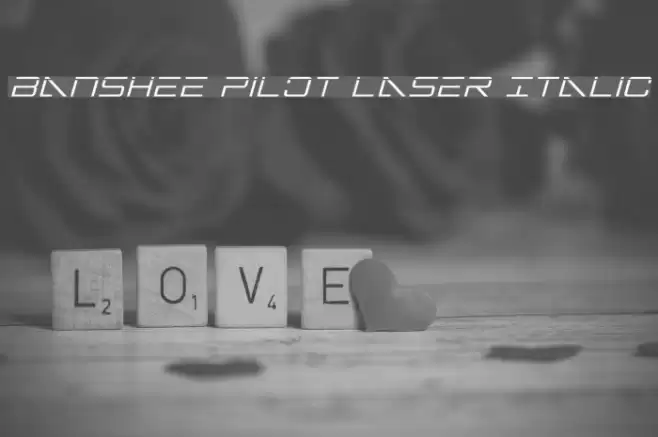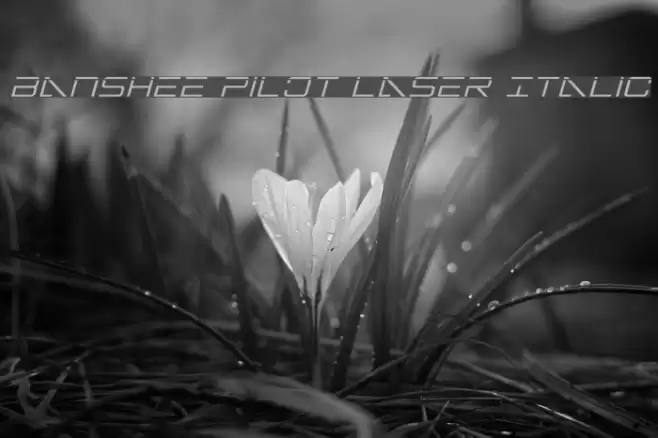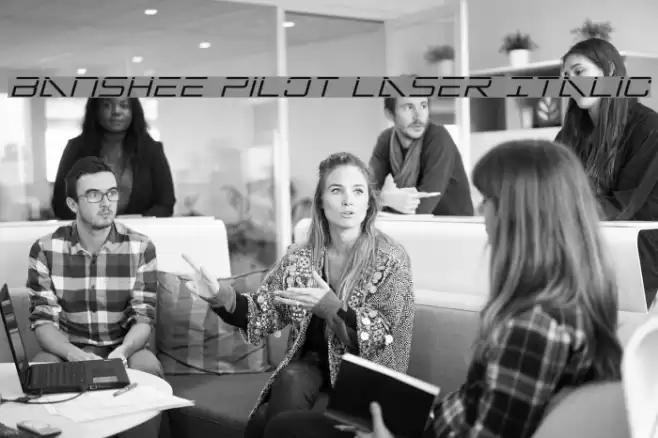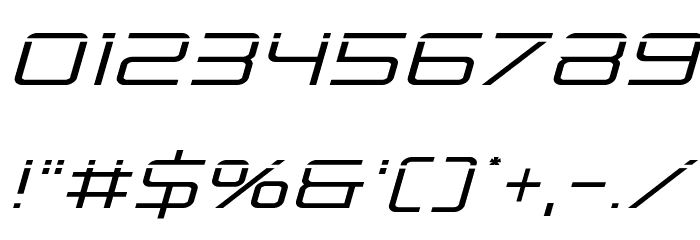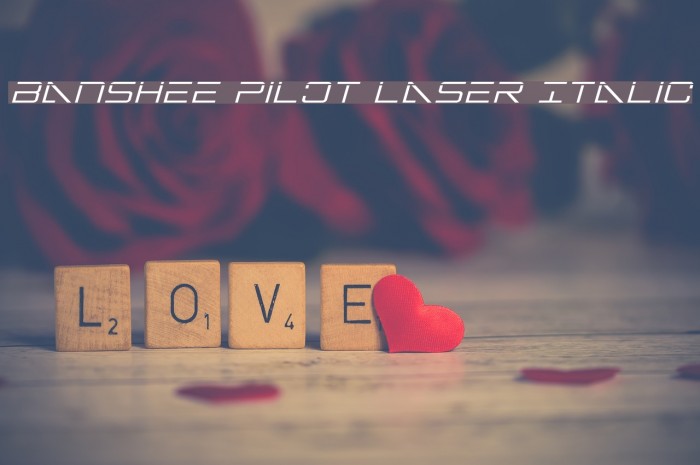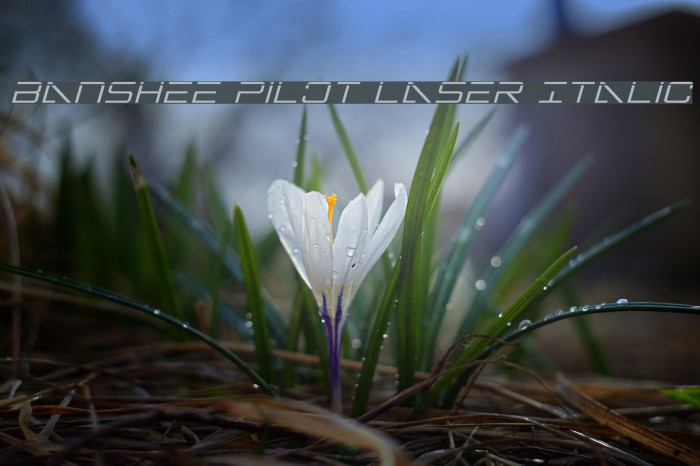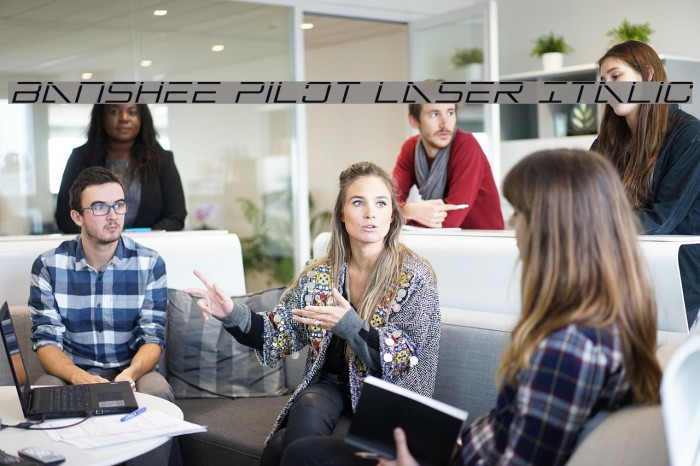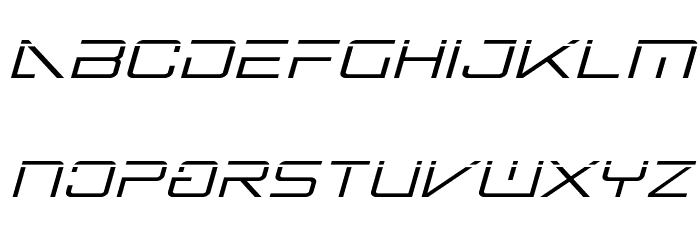
Banshee Pilot Laser Italic Font
Banshee Pilot Laser Italic Description
This font features a futuristic and sleek design with sharp, angular lines and a distinct italic slant. The characters are constructed with a laser-cut appearance, giving them a high-tech and modern feel. The uppercase and lowercase letters maintain a consistent style, with geometric shapes and clean edges. The numerals and special characters follow the same design principles, ensuring uniformity across the font. The overall aesthetic is dynamic and energetic, making it suitable for projects that require a contemporary and cutting-edge look.
A futuristic, italic font with sharp, angular lines and a laser-cut appearance from Sci-fi fonts.
- Proposed Projects: Ideal for technology branding, sci-fi movie posters, video game titles, and modern product packaging.